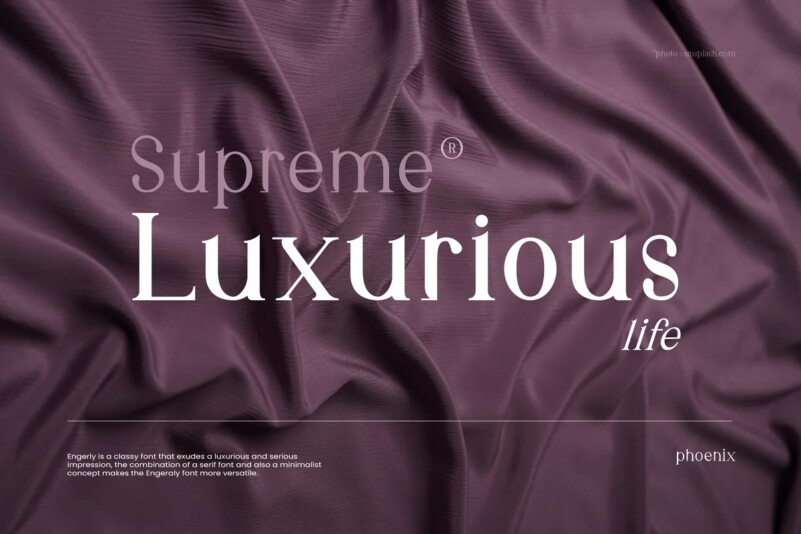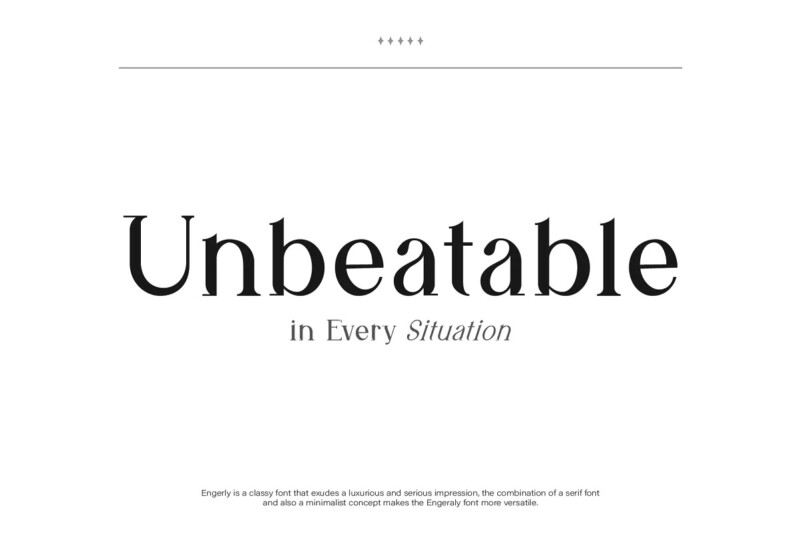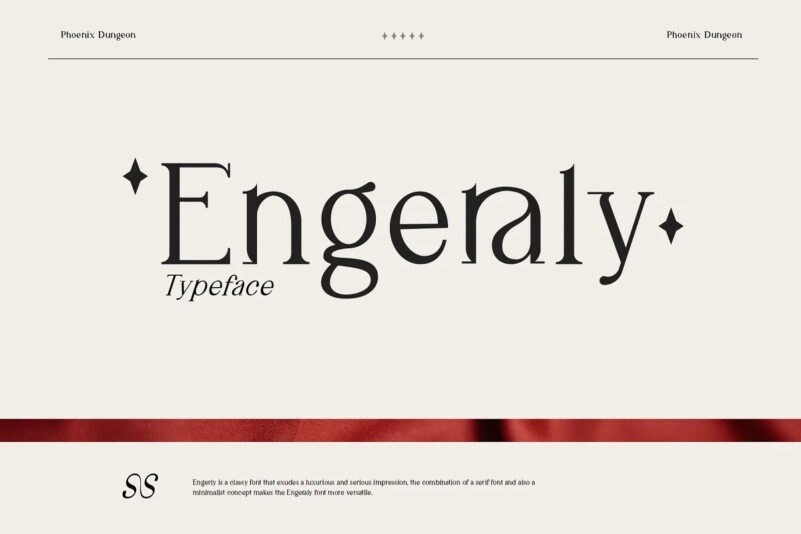
Engeraly Typeface
Engeraly is a classy font that exudes a luxurious and serious impression, the combination of a serif font and also a minimalist concept makes the Engeraly font more versatile.
The Engraly font is made with a combination of serif fonts that are suitable for a modern minimalist style, each line is made with precision and can be used for headlines or long text, there are many symbols in this font that can be used in various languages, you can see the availability of the letters on the poster.